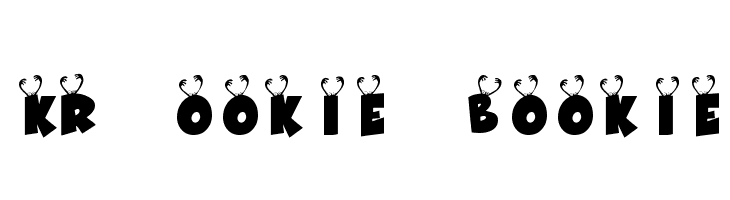
A bold, playful font with decorative antler-like elements on each letter.
A bold, whimsical font with decorative antler-like elements on each letter.